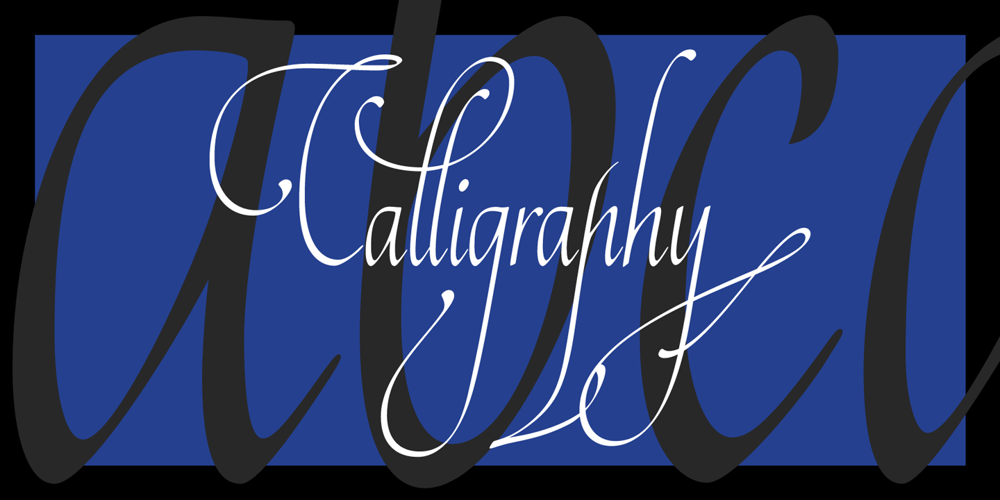
Fado
Fado font
Fado Font Family was designed by Olga Umpeleva and published by Olga Umpeleva. Fado contains 1 styles and family package options. Fado is a calligraphic typeface based on the broad nib calligraphy. It has a lot of alternates, ligatures, initial and final forms. The font has 3 sets of length and complexity of ascenders and descenders. It allows the user to chose the style: simple, with more complicated forms, with a lot of flourishes, and even mix all 3 styles.